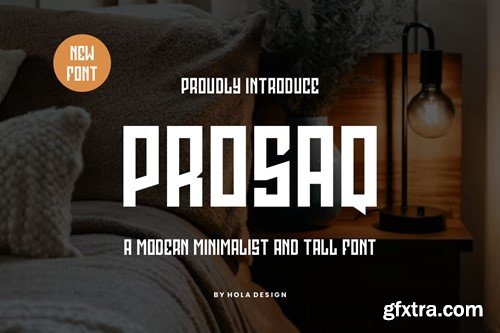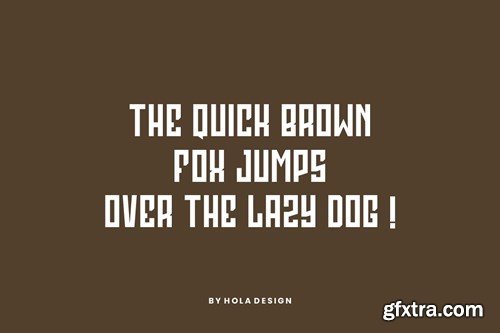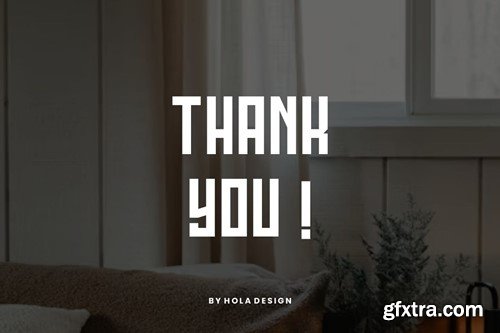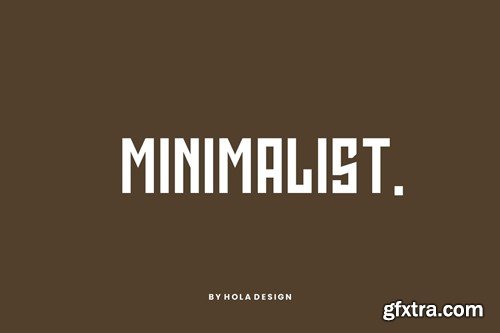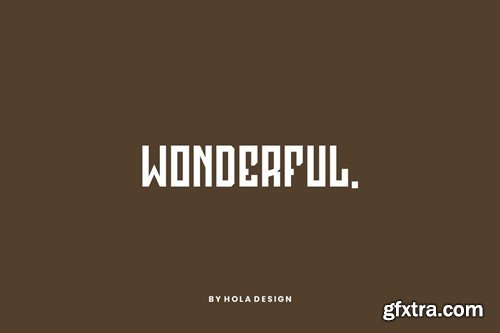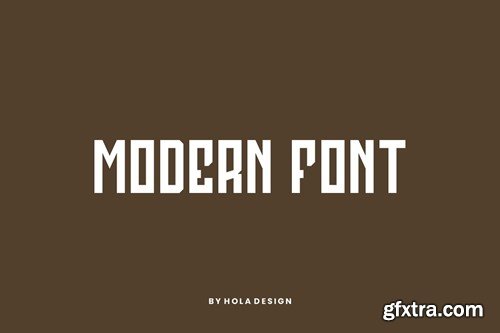
Prosaq - 简约现代字体 994B7RQ
Prosaq - Modern Minimalist Font 994B7RQ
Prosaq - Modern Minimalist Font
Prosaq - Modern Minimalist Font Font is unique . Ready to use for your design like labeling, movie sceen, poster, movie title, gigs, album covers, logos, and much more.